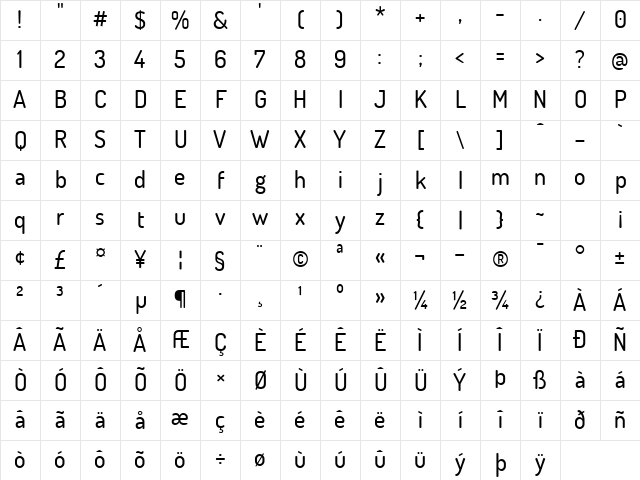
Complete Terminal Dosis Medium glyph index. Displaying only characters natively supported by Terminal Dosis Medium font.
Terminal Dosis is a composed and adaptable typeface that performs quietly and consistently across a wide range of design contexts.
Who designed the Terminal Dosis Medium font?
This font was published by Edgar Tolentino, Pablo Impallari, Igino Marini. Check the technical specs section for copyright and designer details.